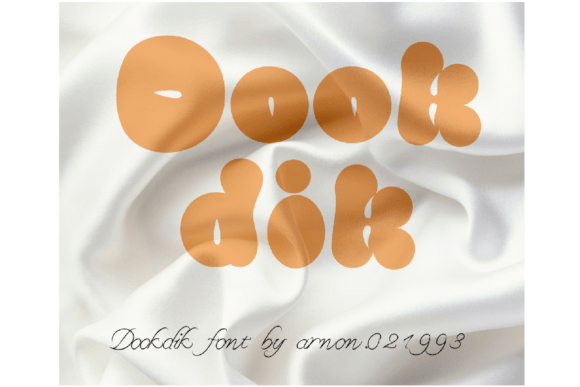
Immerse yourself in the world of Dookdik Font, a captivating display font family that will ignite your creativity and leave a lasting impression on your audience. This meticulously crafted font exudes charm and elegance, with its playful curves and intricate details that dance across the page.
With Dookdik Font, you'll have the power to transform your designs into captivating works of art. Its versatility knows no bounds, making it the perfect choice for a wide range of projects, from wedding invitations and greeting cards to logos, branding materials, and social media graphics. Its charming aesthetics will add a touch of whimsy and sophistication to any project, leaving your audience captivated and inspired.
Unleash your inner artist and explore the endless possibilities that Dookdik Font has to offer. Let your imagination soar as you create eye-catching posters, stylish t-shirts, and personalized mugs that showcase your unique style. Its versatility extends beyond digital creations, allowing you to incorporate its charm into physical products like business cards and greeting cards, leaving a lasting impression on your clients and loved ones.